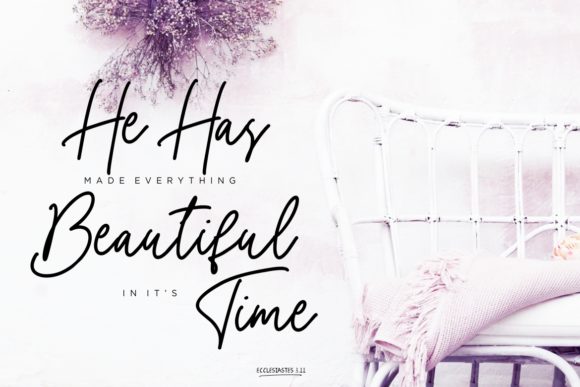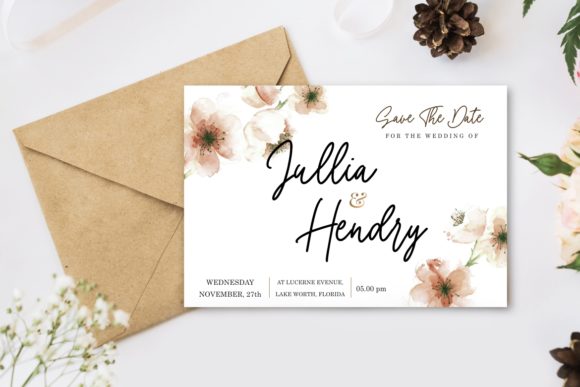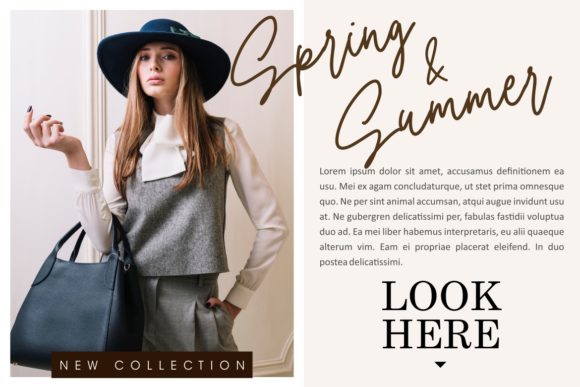
Introduction to Ranjally Font
Do you ever find yourself in the midst of a creative project, desperately searching for the perfect font to bring your vision to life? The struggle is real, but fear not, dear designers, for we have found the solution – the enchanting Ranjally Font. This classic monoline script exudes elegance and sophistication, making it the ideal choice for designers seeking to create an authentic atmosphere.
What sets Ranjally Font apart is its high-quality design, perfect for those looking for a reliable and versatile font resource. Whether you’re working on a personal project or collaborating with clients, Ranjally Font is sure to impress. And the best part? It’s available for free download, complete with a transparent background, allowing you to seamlessly integrate it into your design.
As a valuable design resource, Ranjally Font is a must-have for any creative professional. Its timeless charm and versatility make it an excellent addition to any designer’s toolkit, ensuring that your projects shine with sophistication and style.
Key Features of Ranjally Font
- High-quality design resource ideal for creative projects, offering a unique and elegant style.
- Comes with a transparent background, allowing for easy customization and versatility in design applications.
- Features a clean and modern design, suitable for use in logos, typography, and other creative projects.
Honest Review: Ranjally Font
As a designer, I’m always on the lookout for high-quality fonts to elevate my creative projects. The Ranjally Font is one of those gems that caught my attention. I decided to give it a try and here’s my honest review.
- ✨ The font is incredibly versatile and suitable for a wide range of design projects, from logos to brochures.
- ✨ The font has a transparent background, allowing for seamless integration with other design elements.
- ⚠️ The font may not be suitable for small text sizes, as it can appear pixelated.
- ⚠️ The font’s style may not be to everyone’s taste, as it has a unique and bold aesthetic.
Overall, I’m impressed with the Ranjally Font. Its high quality and versatility make it a valuable addition to any designer’s toolkit. While it may have some limitations, it’s definitely worth considering for your next creative project.
Tips for Getting the Most Out of Ranjally Font
Use Ranjally Font with a transparent background to create a modern and sleek design. Experiment with different font sizes and colors to add depth and visual interest to your project. This design resource is versatile and can be used for a wide range of creative projects.
Ranjally Font is commonly used for presentations, reports, social media graphics, and marketing materials. Its high-quality design and transparent background make it an ideal choice for designers and non-designers alike.